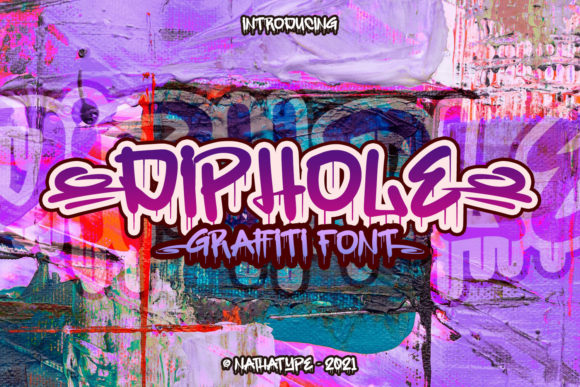
Prepare to be mesmerized by Diphole, the font that will ignite your imagination and captivate your audience. This extraordinary display font exudes an enigmatic street art charm, adding a touch of urban flair to your designs.
Picture this: Your print books adorned with Diphole's bold and edgy strokes, evoking a sense of mystery and intrigue. Its unique character invites you to explore the depths of creativity, promising to leave an unforgettable mark on your readers.
Step into the realm of graphic design and let Diphole unleash its full potential. Envision eye-catching jerseys, sportswear, and skateboards emblazoned with this dynamic font. Its raw energy will elevate your designs to new heights, making them stand out from the crowd.
Diphole is not just a font; it's an artistic expression that unlocks boundless possibilities. Dive into the world of Monogram Lovers and let this stunning display font ignite your passion for design. Embrace Diphole today and embark on a creative journey that will leave an everlasting impression.